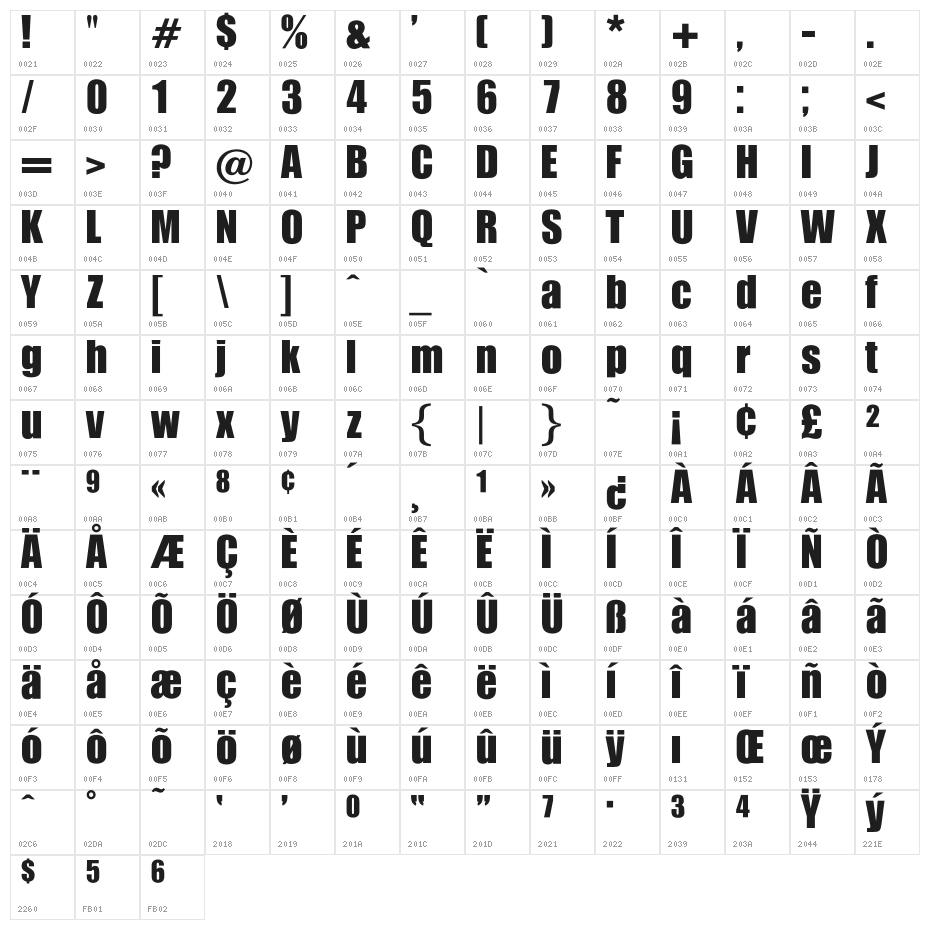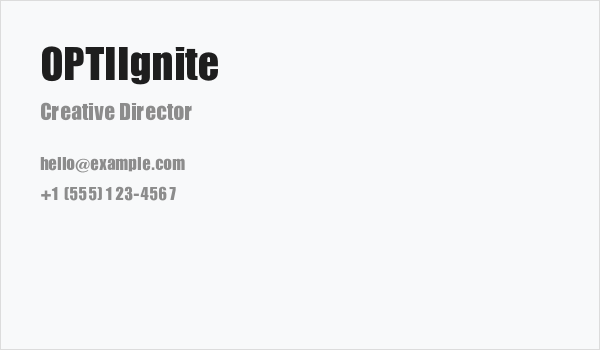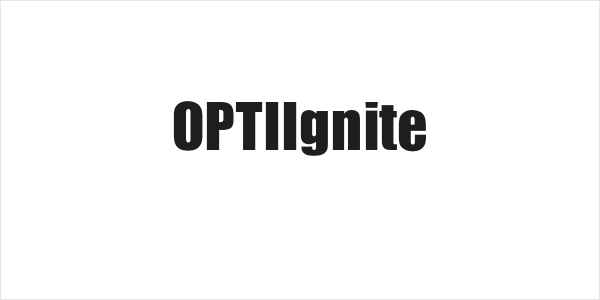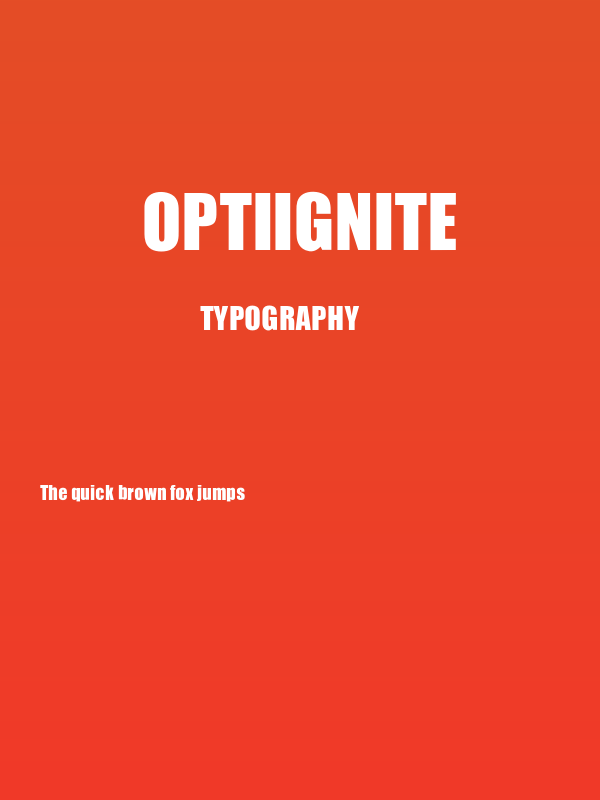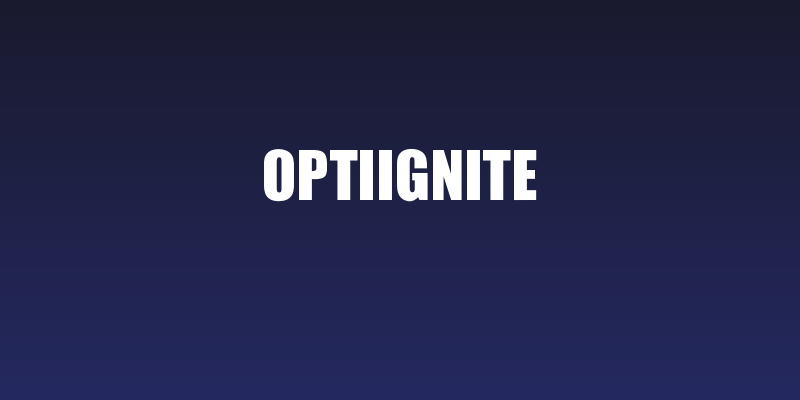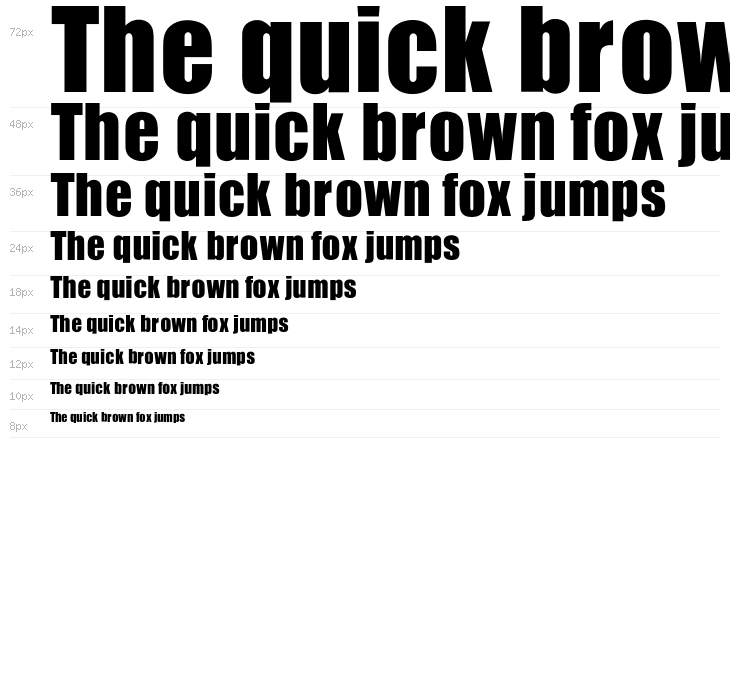
OPTIIgnite Font
OPTIIgnite Description
This font features bold, impactful characters with a strong presence, making it ideal for attention-grabbing designs. The uppercase and lowercase letters are uniformly bold, with consistent stroke thickness throughout. The numbers and special characters maintain the same robust style, ensuring a cohesive look across all text elements. The font's design is clean and straightforward, with no unnecessary embellishments, allowing it to convey messages clearly and effectively. Its solid structure and high legibility make it suitable for a variety of applications where visibility and emphasis are key.
Proposed ProjectsIdeal for headlines, posters, banners, and any project requiring strong visual impact.